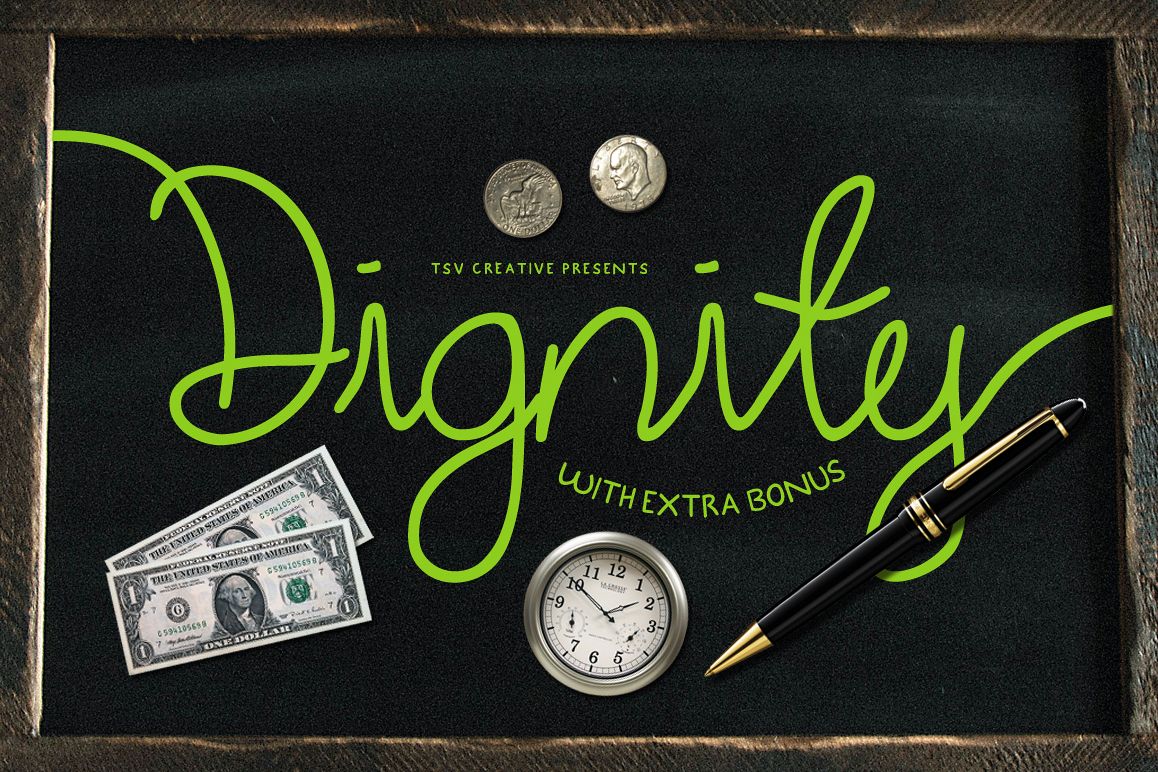
Dignity Cursive + Bonus
We proud to release DIGNITY
Dignity is monoline cursive script with opentype features, extra bonus fonts & goodie bag!
Feature :
- Numeric
- Alternates
- Punctuations
- Back Swashes
- Ornaments
- Dingbats